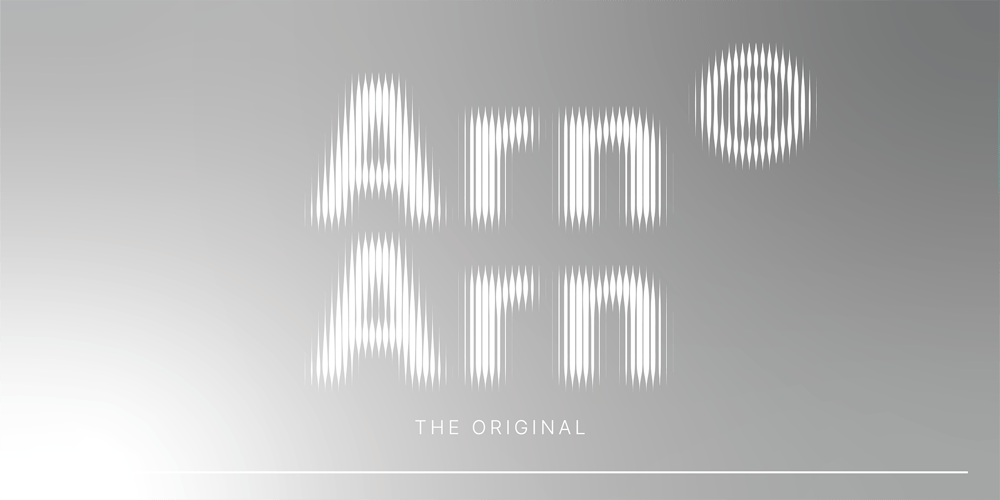
Arnarn Font Family was designed by Myoungwon Suh and published by Designsuh. Arnarn contains 3 styles and family package options. The sight refracted through glass is mysterious.The san serif font was designed to look like it is visible through glass. Try using beautiful fonts. I put a lot of effort into each and every letter.